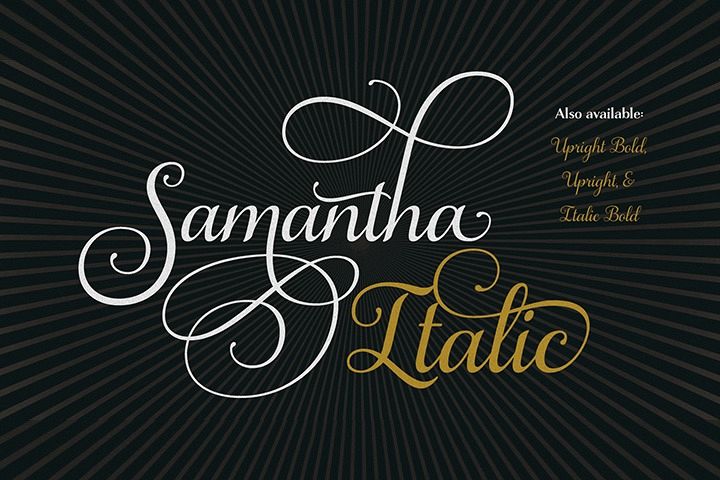
Samantha is a bright and cheerful font based on pointed-pen lettering
and featuring slightly condensed characters and a measured rhythm.
Samantha is available in upright or italic variants, each with regular
and bold weights and features over 1,100 alternates and swash characters
that vary in size and complexity. Samantha includes 60 ornaments and 45
catchwords, lining numerals and oldstyle and swash numerals.